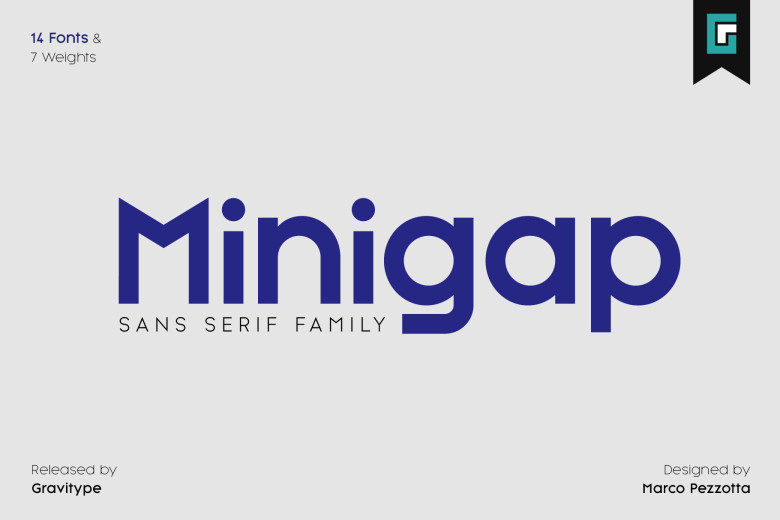
Minigap is a geometric sans serif font family that has a minimal height difference between upper and lower case. In other words, if you’re into typography, it has a very high x-height… yes, very high. The choice was made to finally have a typeface that could appear very neat, reducing ascending and descending parts of the glyphs (b, d, g, j, l, …) that could interfere with the lines above and below. All of that without going to extremes in a unicase style, but also without renouncing to great legibility.
This aesthetic, in fact, translates into a pleasant visual effect that creates well-defined lines and enhances the layout, looking excellent on small screens. A meticulous optical correction starting from pure geometric lines was applied to every glyph, aiming to obtain the best version of each.
Minigap Sans Serif Font